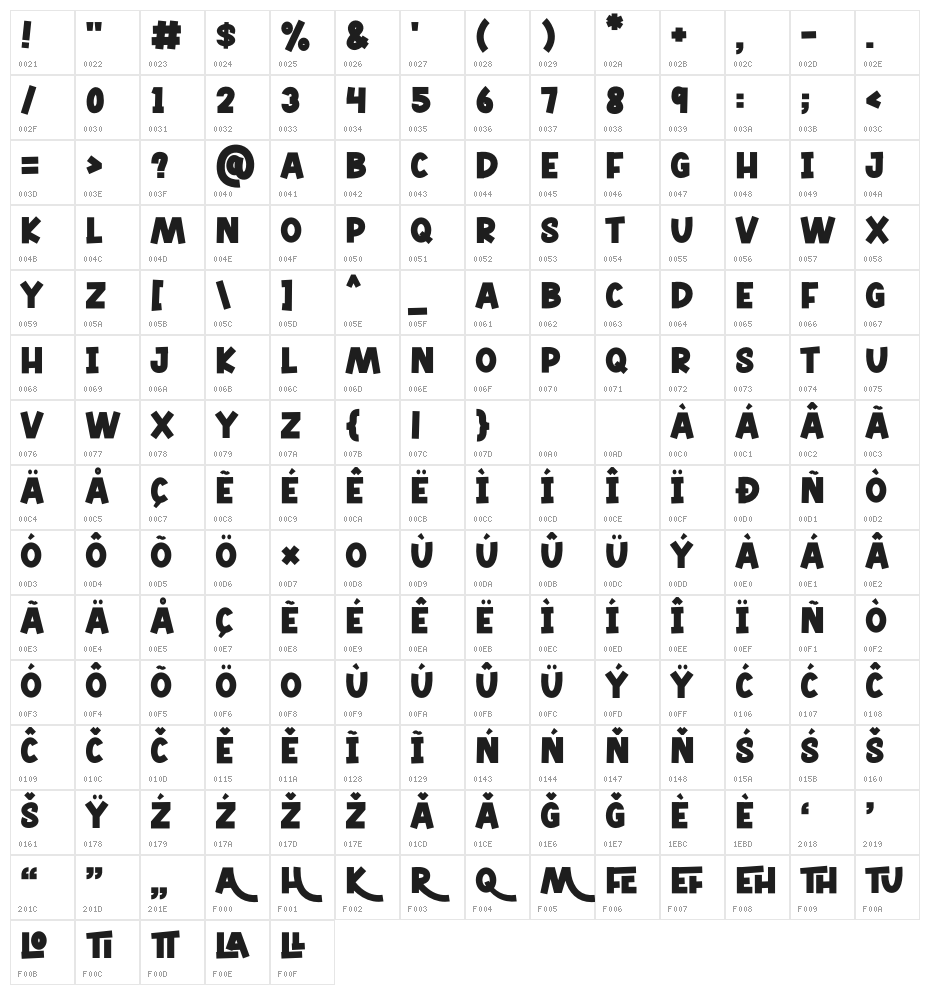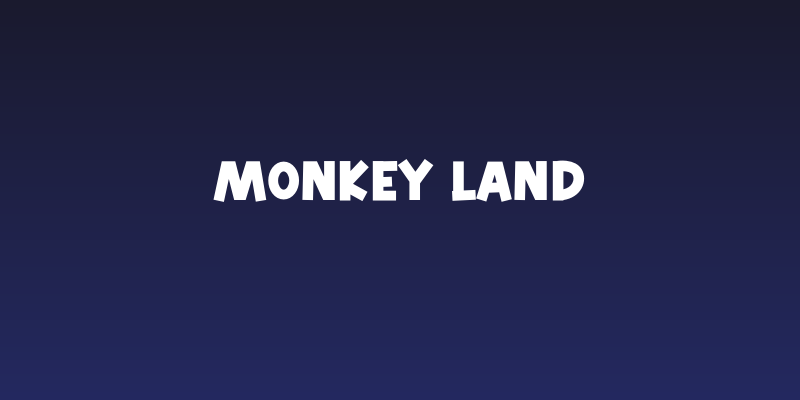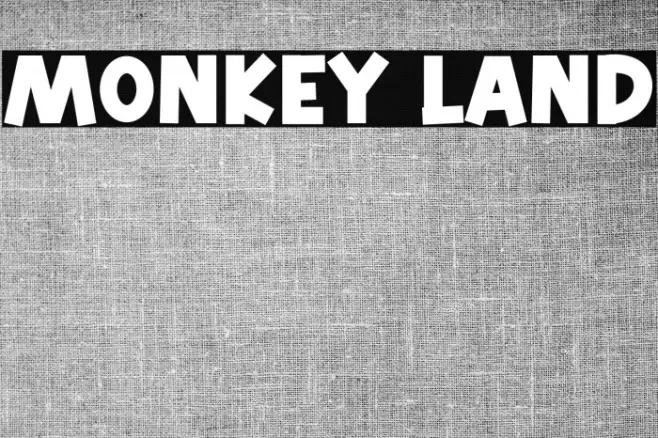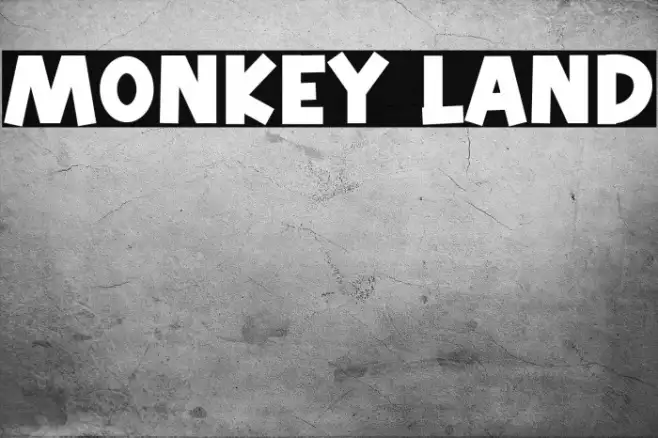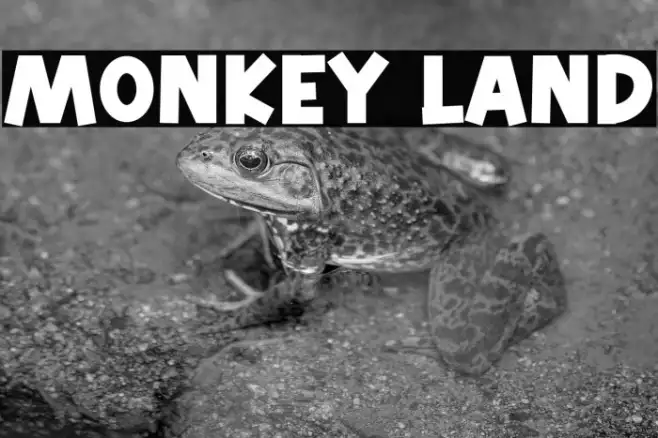
Monkey Land Font
Monkey Land Description
This playful and bold font features exaggerated, uneven strokes that give it a whimsical and energetic appearance. The characters are thick and slightly irregular, creating a sense of movement and fun. The uppercase and lowercase letters maintain a consistent style, with rounded edges and a hand-drawn feel. Numbers and special characters are equally bold and dynamic, fitting seamlessly with the overall design. The font's unique style makes it ideal for projects that require a lively and informal touch.
| Proposed Projects | Perfect for children's books, comic strips, playful branding, party invitations, and any project needing a fun and energetic vibe. |